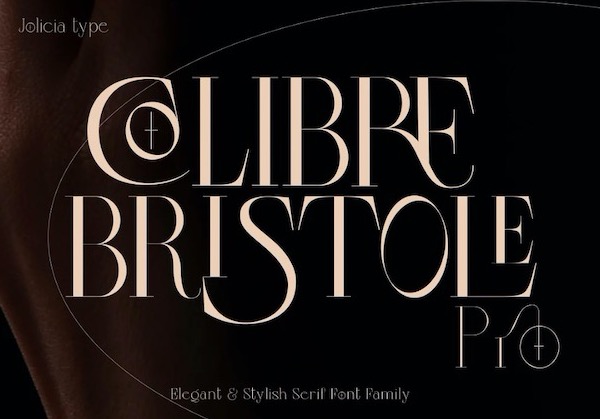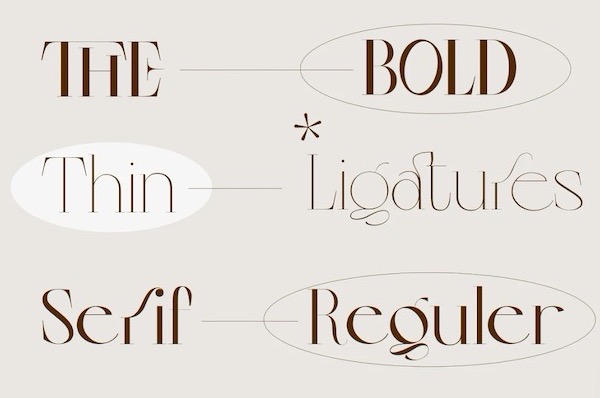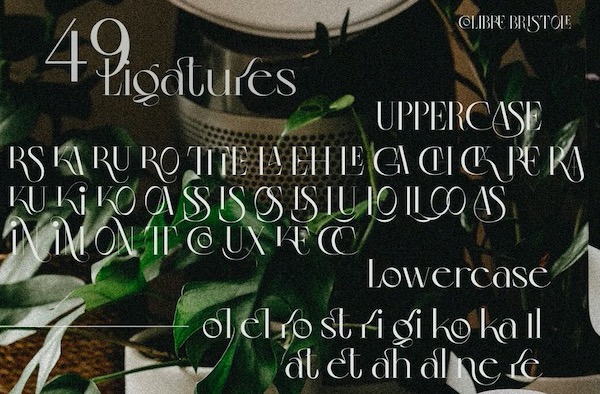
Colibre Bristole Pro is a modern and classy serif font family that crafted with precision, Colibre Bristole consist of 9 styles from thin to black. has 49 ligatures to make writing more interactive
Colibre Bristole Pro Serif Font